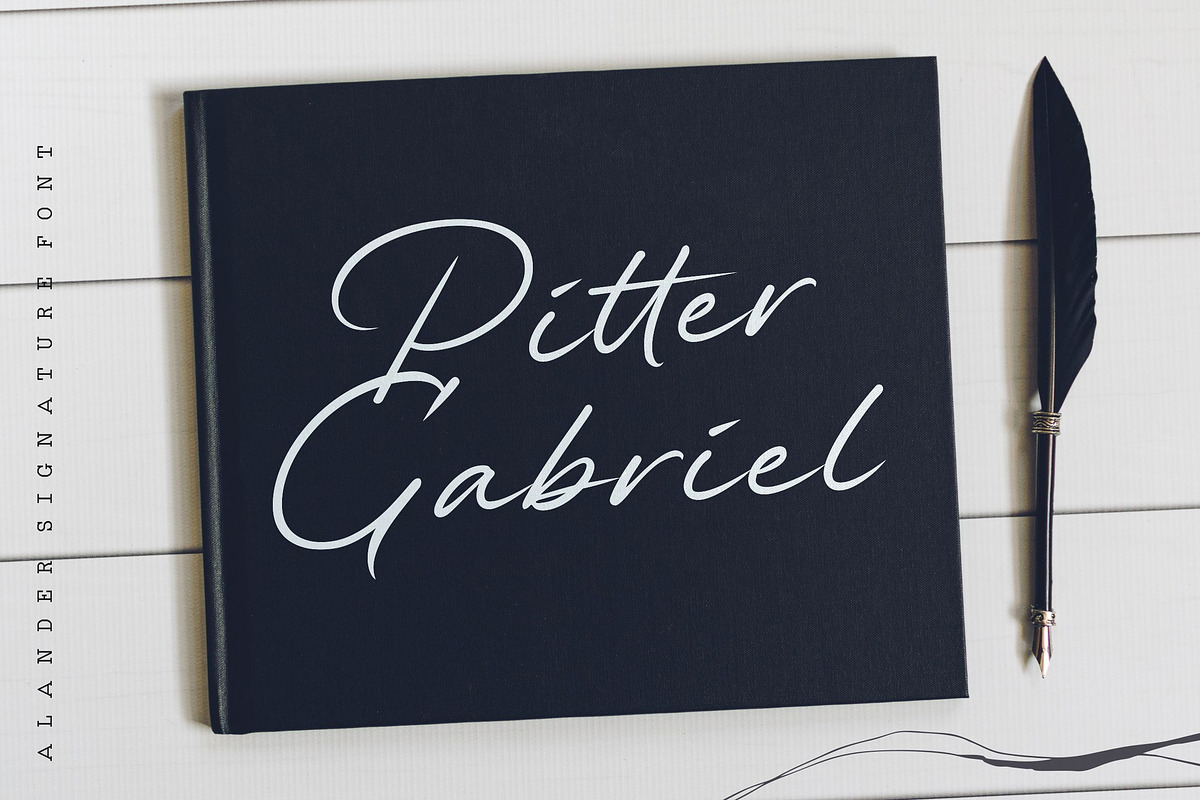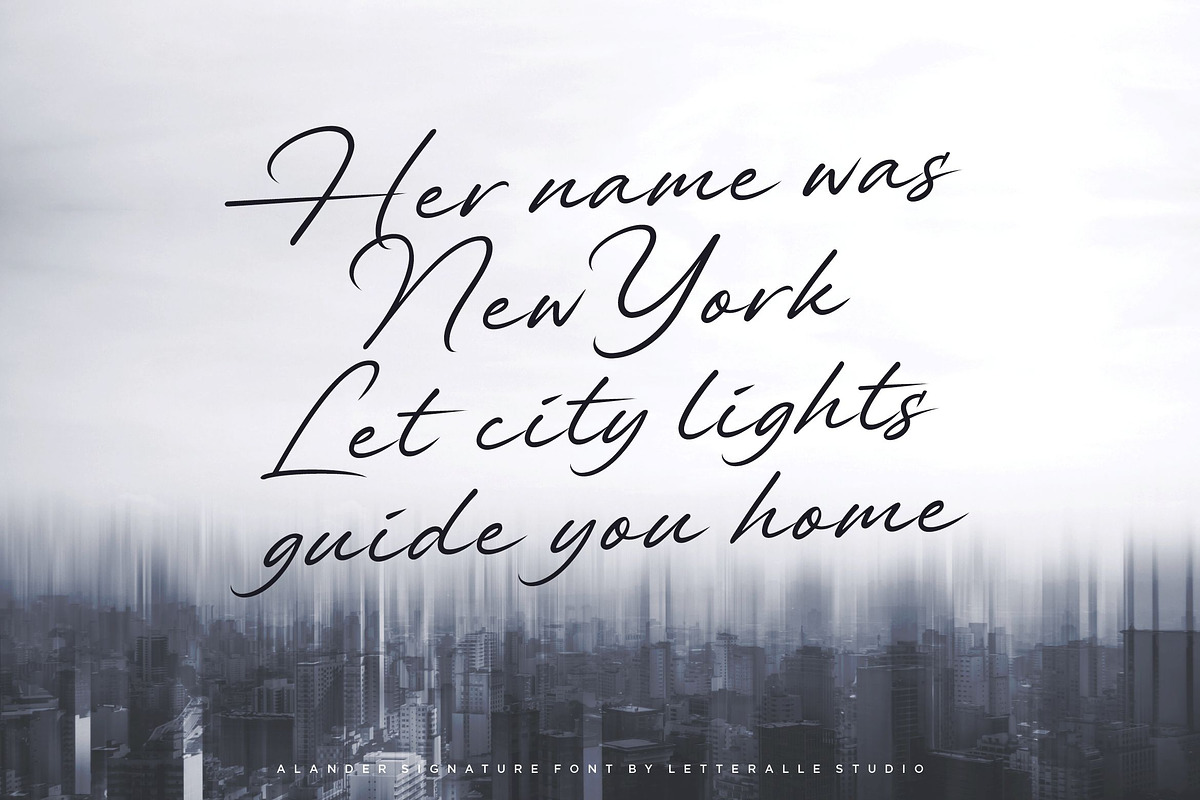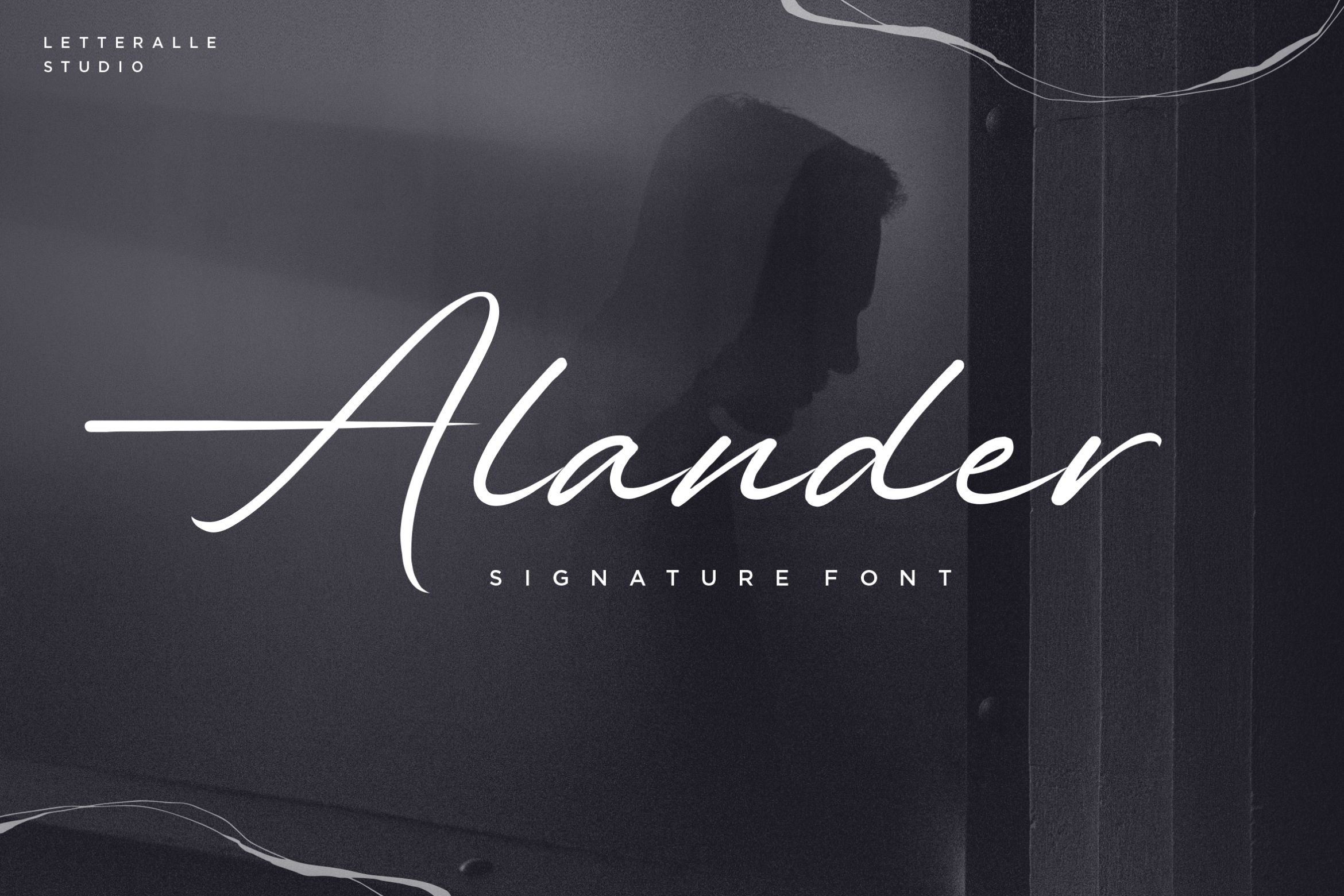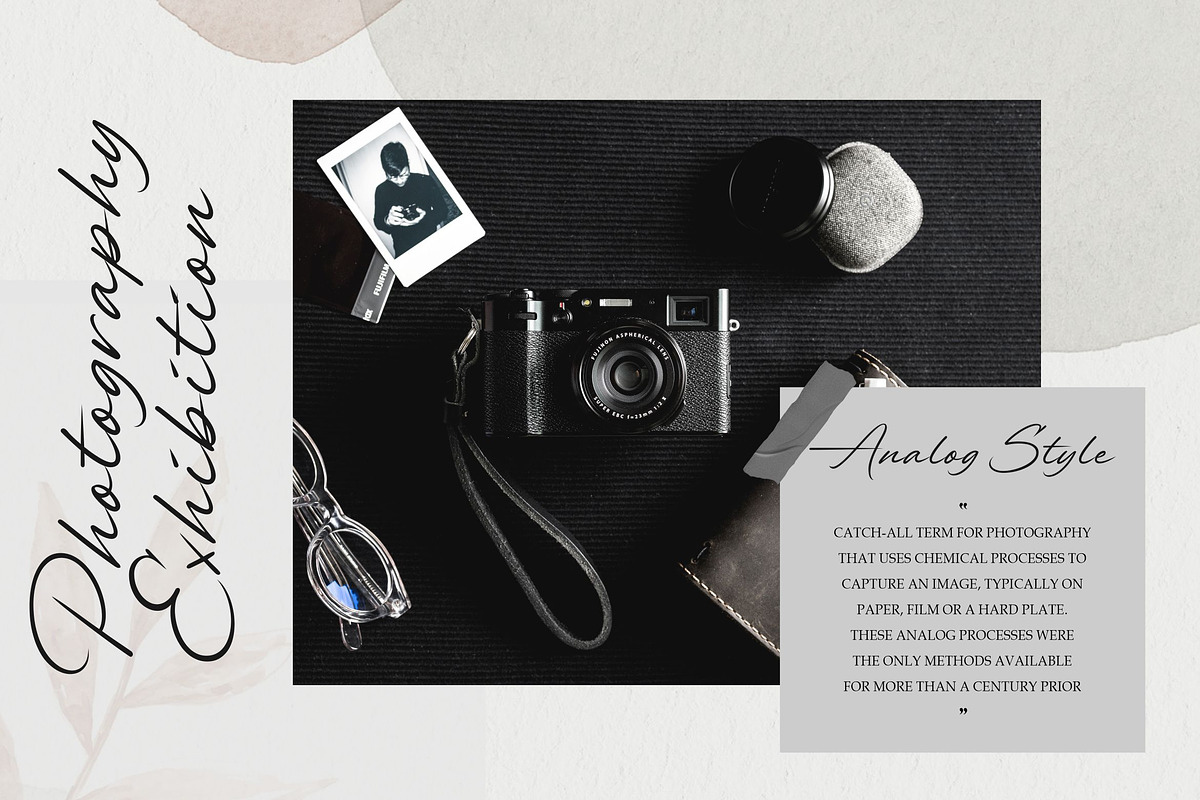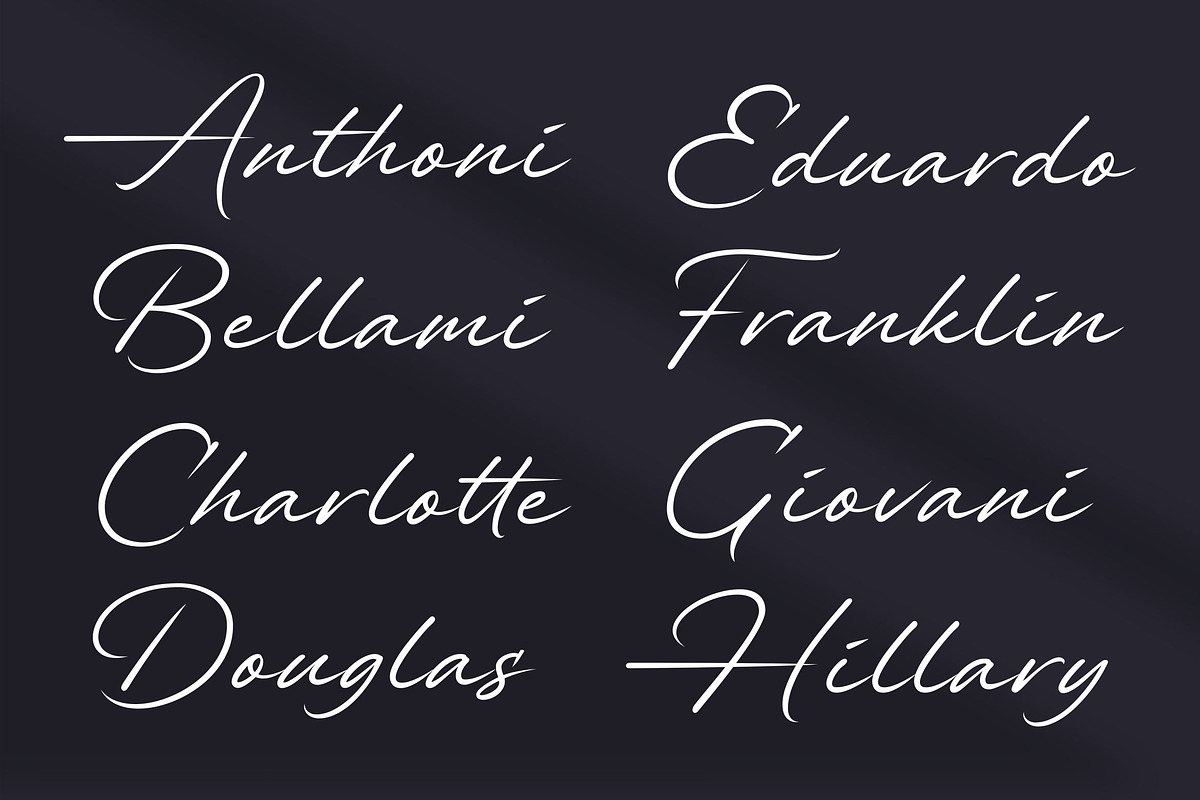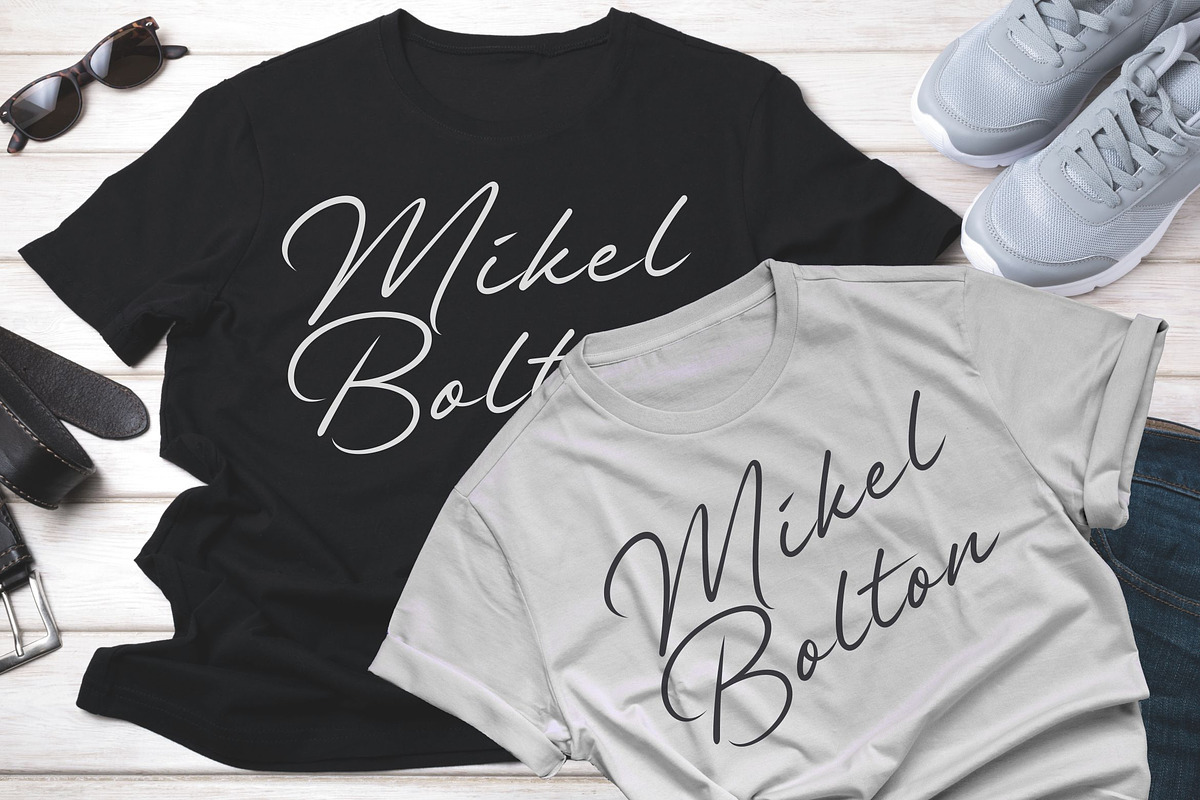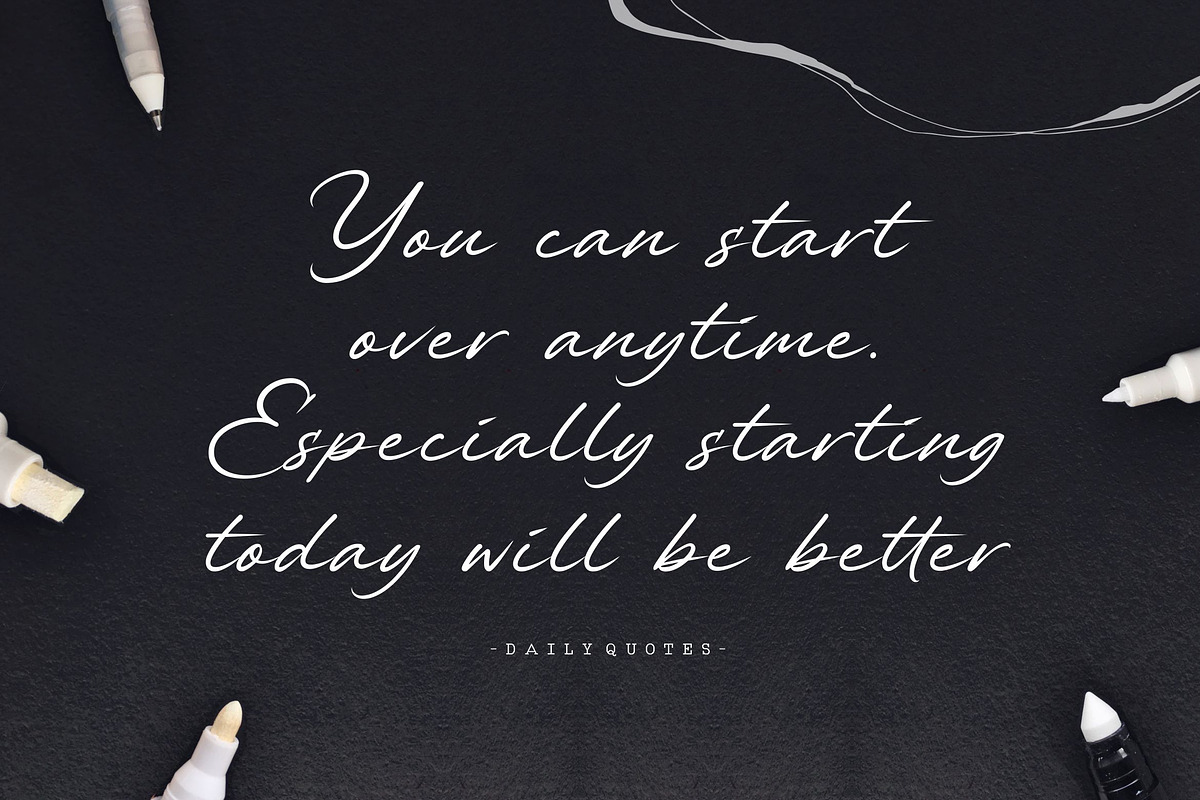
Alander Signature Font
I'd like to introduce you Alander!
a wonderful signature font. Alander comes with a stylish style and a masculine impression. A little chic and classy, Alander is a worthy addition to your collection of handwritten script fonts.
Alander is perfect for many design needs such as merch, T-shirts, titles, book covers, social media posts, websites, events, and many more.